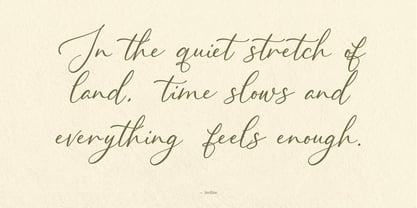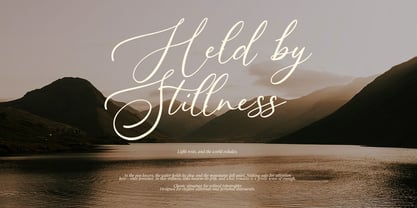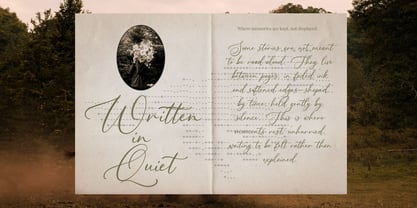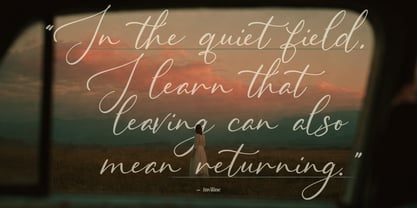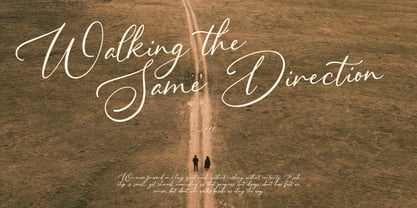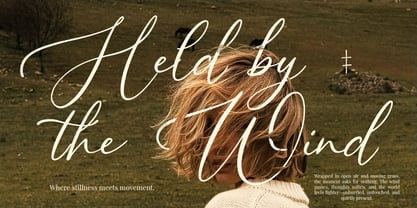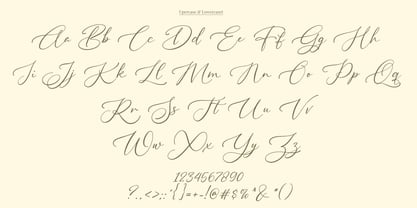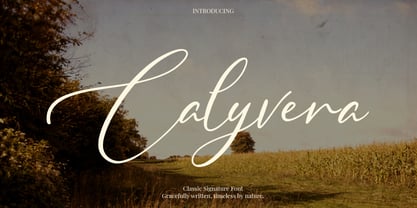
Calyvera
La familia tipográfica Calyvera fue diseñada por Virgiawan Listanto y publicada por Inviline. Calyvera contiene 1 estilos. Más información sobre esta familia
Calyvera is a classic signature font inspired by wide, quiet fields and the softness of handwritten letters. Its long, flowing strokes and gentle contrast create a refined script that feels both personal and timeless. Designed for moments that deserve to be remembered, Calyvera brings a calm, editorial elegance to names, quotes, and branding. Whether placed over photographs or used in print layouts, every line evokes a sense of stillness, slow, intentional, and full of character. This versatile font is ideal for enhancing branding, crafting memorable quotes, and adding a touch of sophistication to various design projects. With multiple weights and OpenType features, Calyvera adapts seamlessly to diverse applications, making it a perfect choice for web design, editorial layouts, and creative branding solutions.